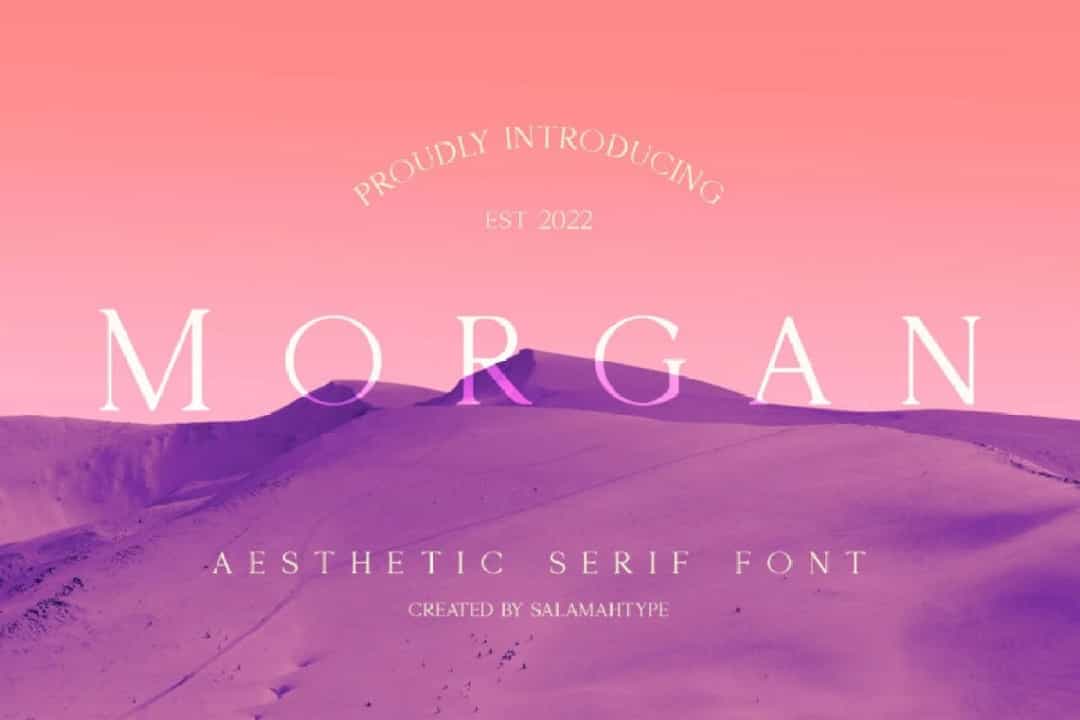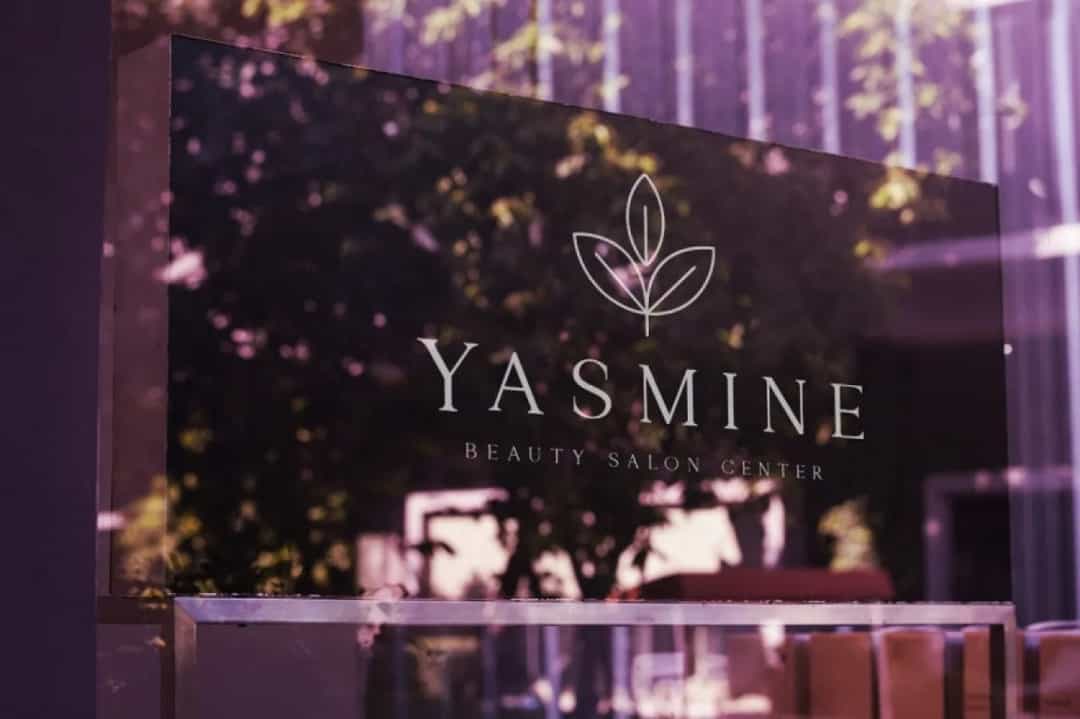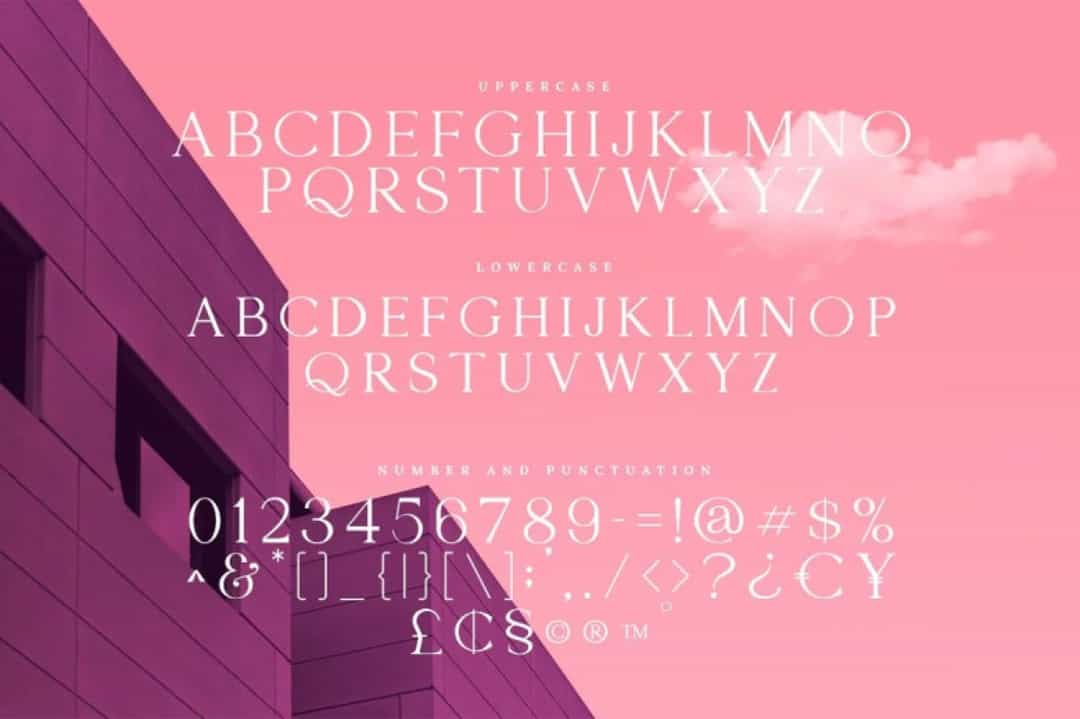
Morgan is an elegant yet subtle serif font suitable for many purposes within business, such as packaging products, branding books, logo design for logos or wedding invitations, labels etc.